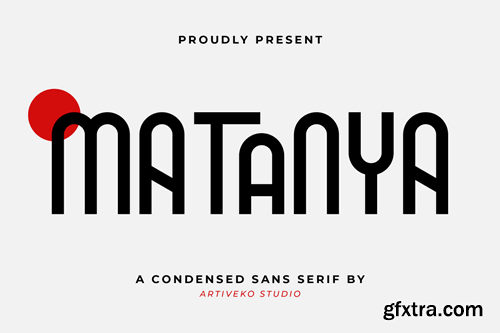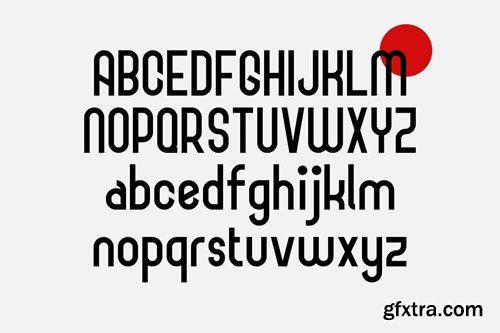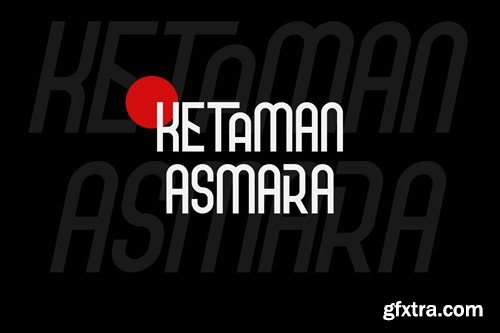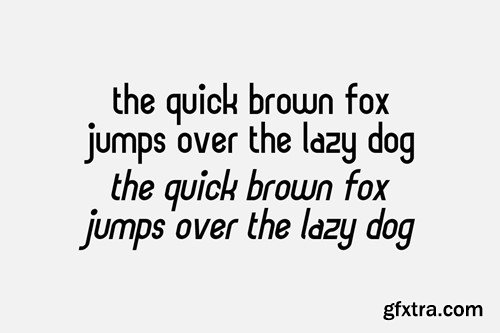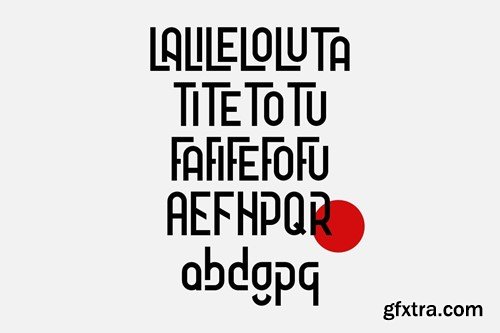
Matanya Sans Serif Logo Font
Matanya Sans Serif Logo Font This font is perfect for posters, social media posts, branding, personal projects, etc. Include Files Thank you